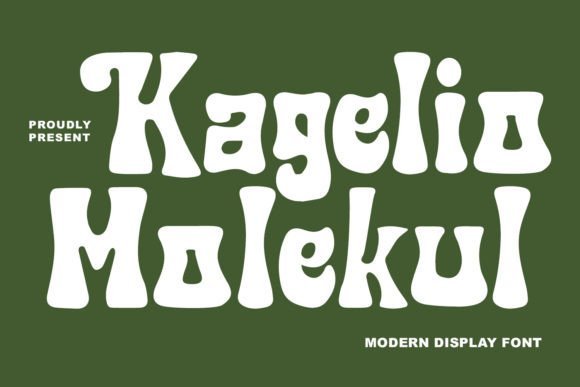
The Perfect Font for Creative Expression
Have you ever been in a moment of pure creative bliss, where the words just flow effortlessly onto the page? You’re not alone. As designers, we’ve all been there – and we know how crucial the right font can be to capture that magic. Introducing the Kagelio Molekul Font, a display font designed to add a touch of fun and whimsy to your work.
With its unique blend of ligatures and creative flair, the Kagelio Molekul Font is the perfect tool for designers looking to push the boundaries of their craft. And with support for over 100 languages, the possibilities are endless. Whether you’re working on a branding project or a marketing campaign, this font is sure to bring a fresh perspective to your design.
Kagelio Molekul Font Key Features
- Font Family: Kagelio Molekul
- Unique Characteristic: The font features a unique, hand-drawn style with a scientific twist, inspired by molecular structures
Kagelio Molekul Font Review
I’ve had the chance to dive into the Kagelio Molekul Font, and I’m excited to share my thoughts with you. Here’s what I think works well:
- ✨ Unique aesthetic: The Kagelio Molekul Font has a distinct, futuristic vibe that sets it apart from more traditional fonts. It’s perfect for designers looking to add some visual interest to their projects.
- ✨ Versatility: This font is incredibly versatile, with a wide range of applications, from digital displays to print materials. It’s easy to use and adapts well to different contexts.
- ✨ Smooth curves: The font’s curves are smooth and flowing, making it a joy to read. The letterforms are well-balanced, and the overall design is well-executed.
- ⚠️ Limited character set: While the font is suitable for most English text, it may not support a wide range of languages or characters. This could be a limitation for international projects or those requiring specific character sets.
- ⚠️ Not ideal for small text: Due to its bold, futuristic design, the Kagelio Molekul Font may not be the best choice for small text or fine typography. It’s better suited for headings, titles, or larger blocks of text.
Overall, the Kagelio Molekul Font is a solid choice for designers looking to add some visual flair to their projects. While it has its limitations, it’s well-designed and versatile, making it a great addition to any font collection.
Tips for Getting the Most Out of the Kagelio Molekul Font
To get the most out of the Kagelio Molekul Font, use it in conjunction with bold or italic text to create visual interest. You can also use it in combination with other fonts to create a unique and eye-catching design.
The Kagelio Molekul Font is perfect for use in scientific and technical designs, such as:
- Chemistry and biology illustrations
- Mathematical equations and formulas
- Scientific and technical reports